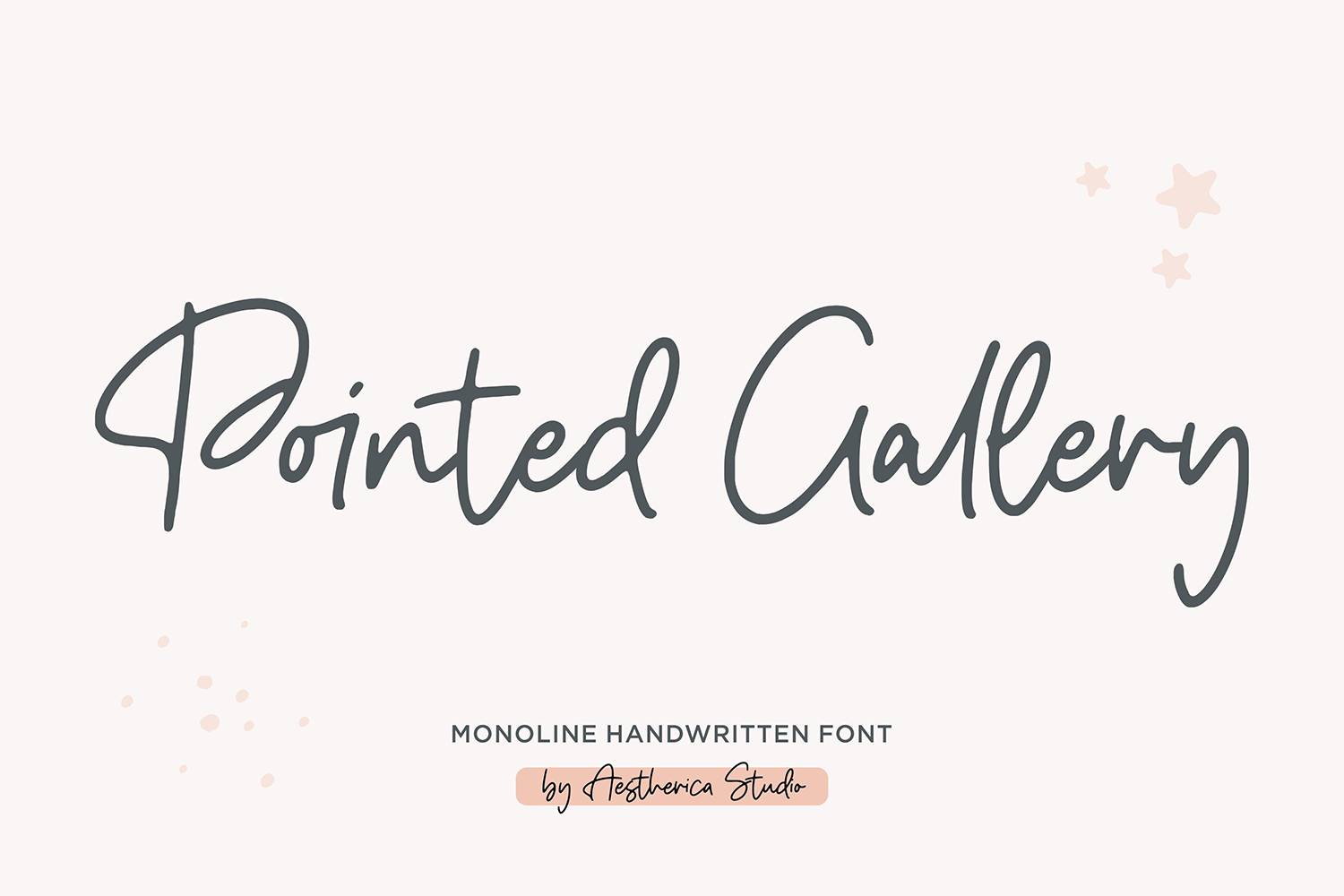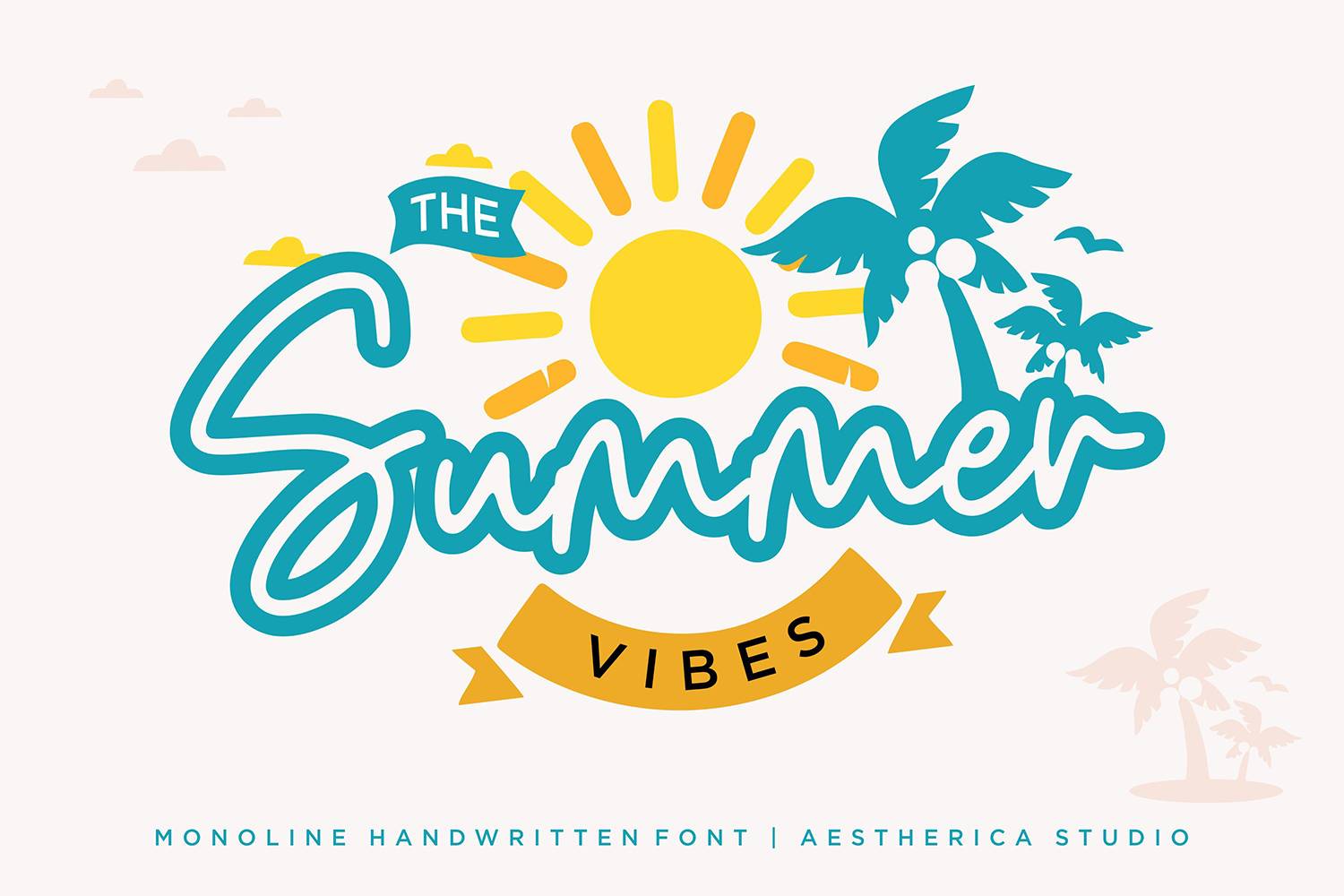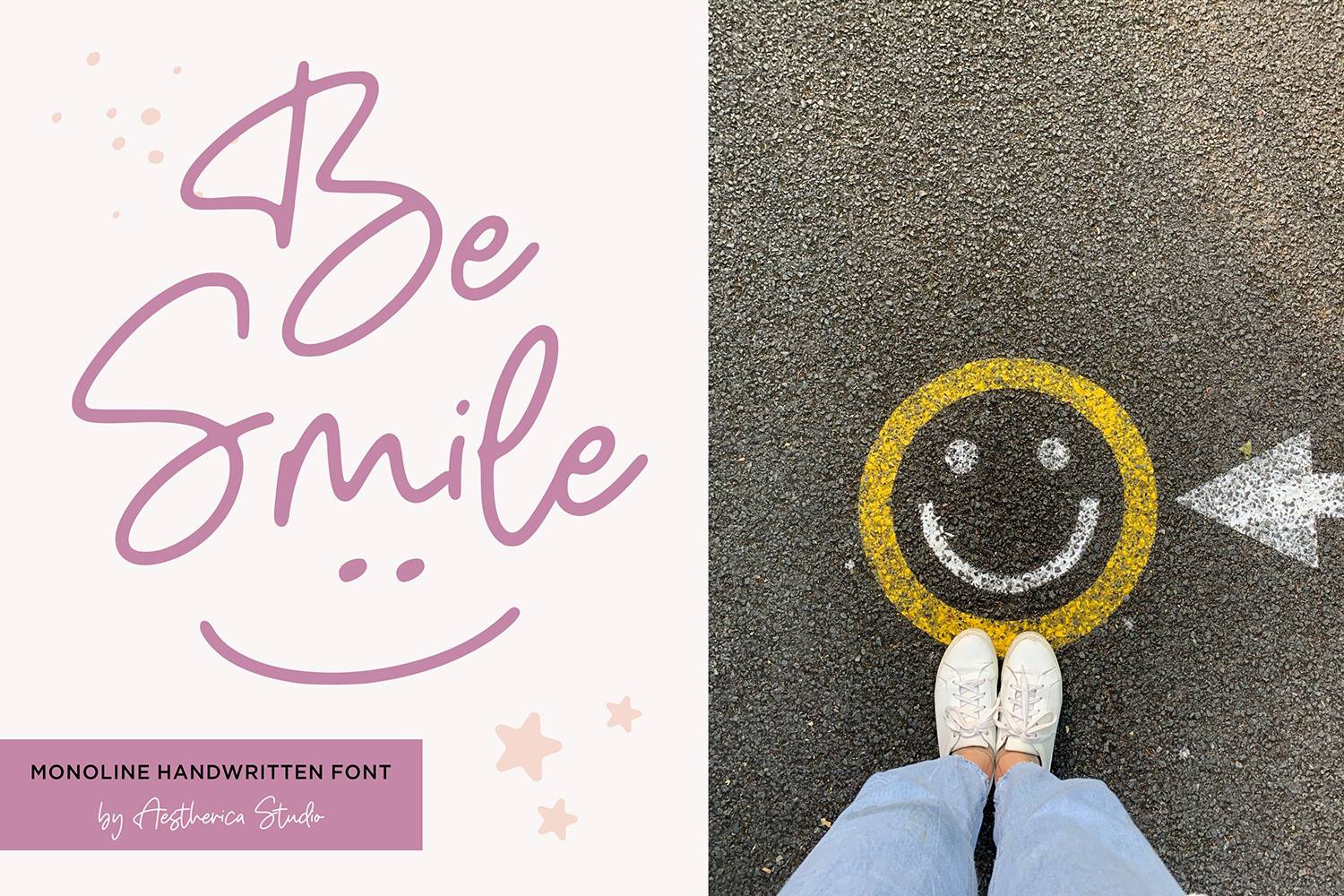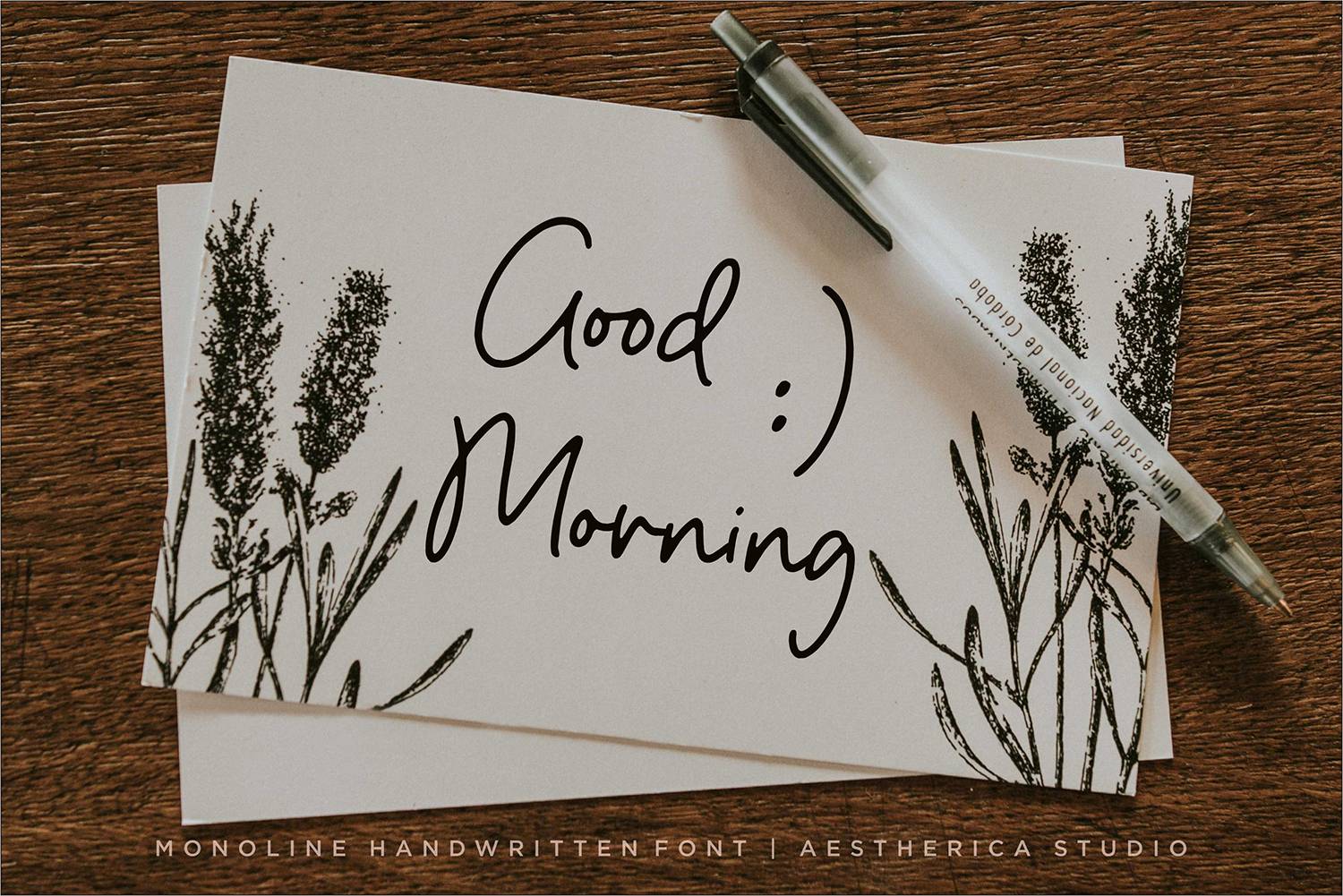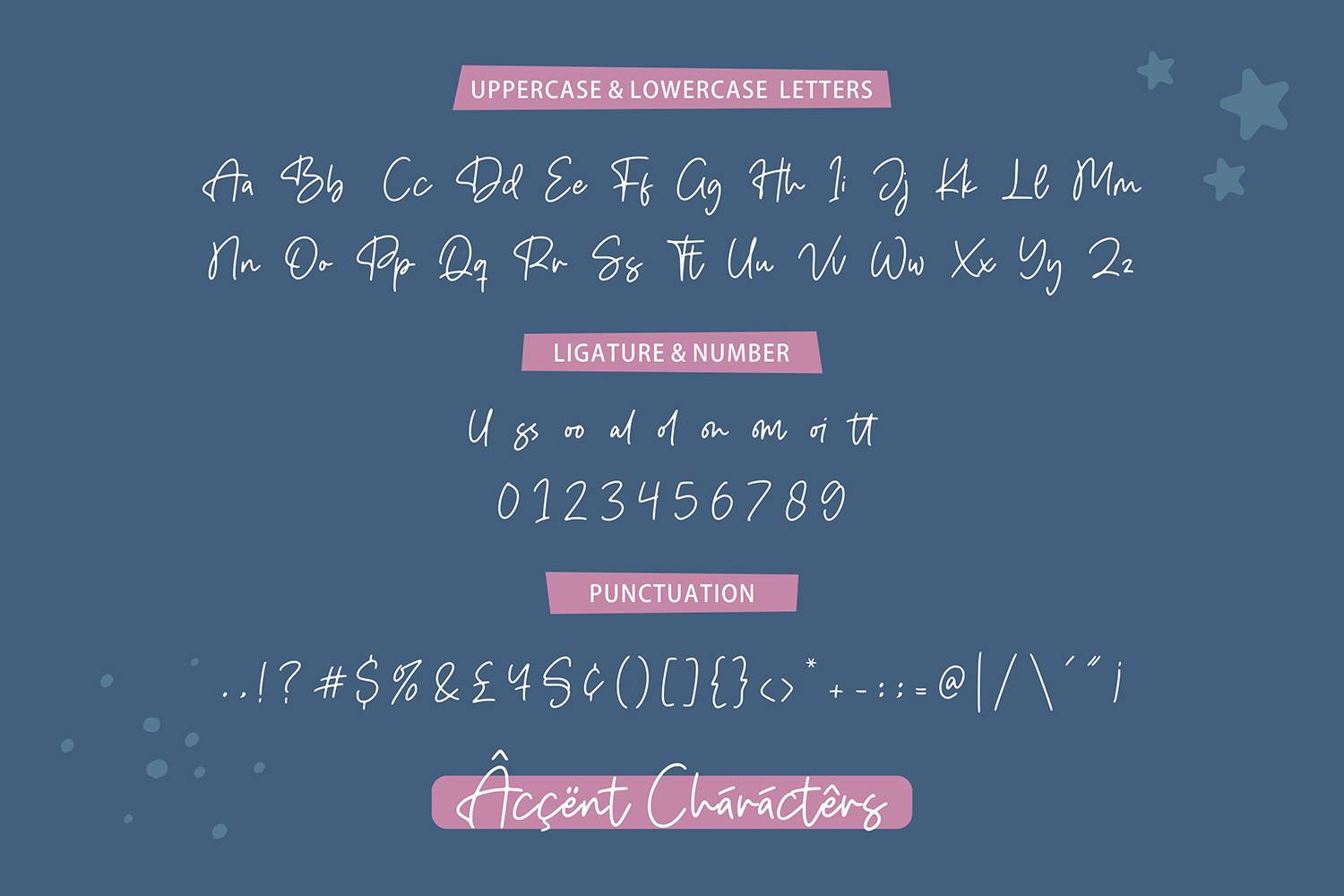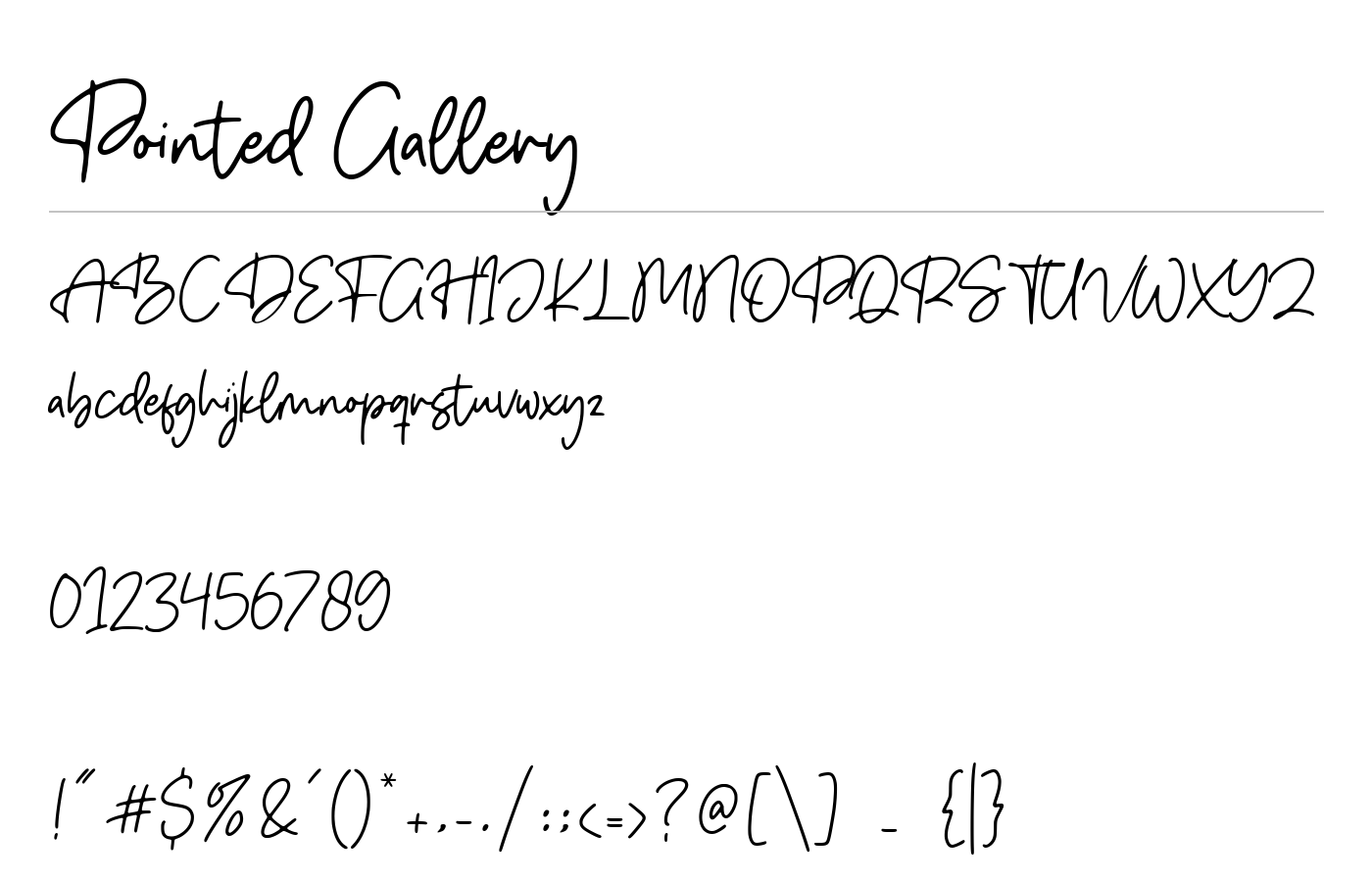
Pointed Gallery is a light, handwritten script font with a casual and elegant feel, featuring slender, flowing strokes that create an inviting and personal touch. Its narrow width and moderate x-height combined with playful letterforms make it perfect for creative branding, personal projects, and trendy editorial designs that want to convey warmth and individuality. This font works well in logos, invitations, and headlines where a stylish, hand-crafted impression is desired.
Pointed Gallery Font
About Pointed Gallery Font